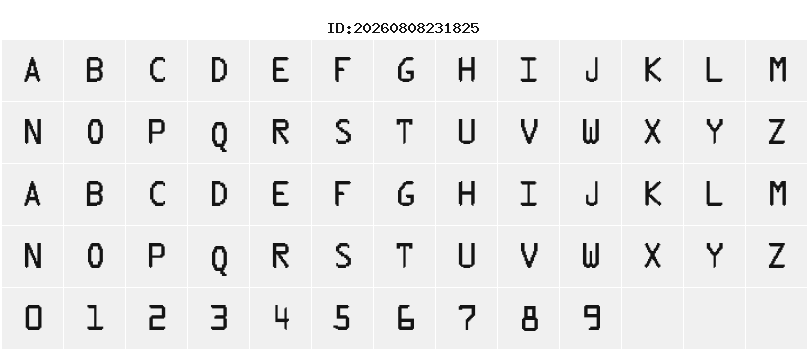
Pix Type Preview
• Font Name: Pix Type
• Full Font Name: PixType
• PostScript Name: PixType
About Pix Type.otf
Pix Type.otf is a modern, elegant sans-serif font designed for ultimate readability and visual harmony. Perfect for branding, headlines, web design, and print materials.